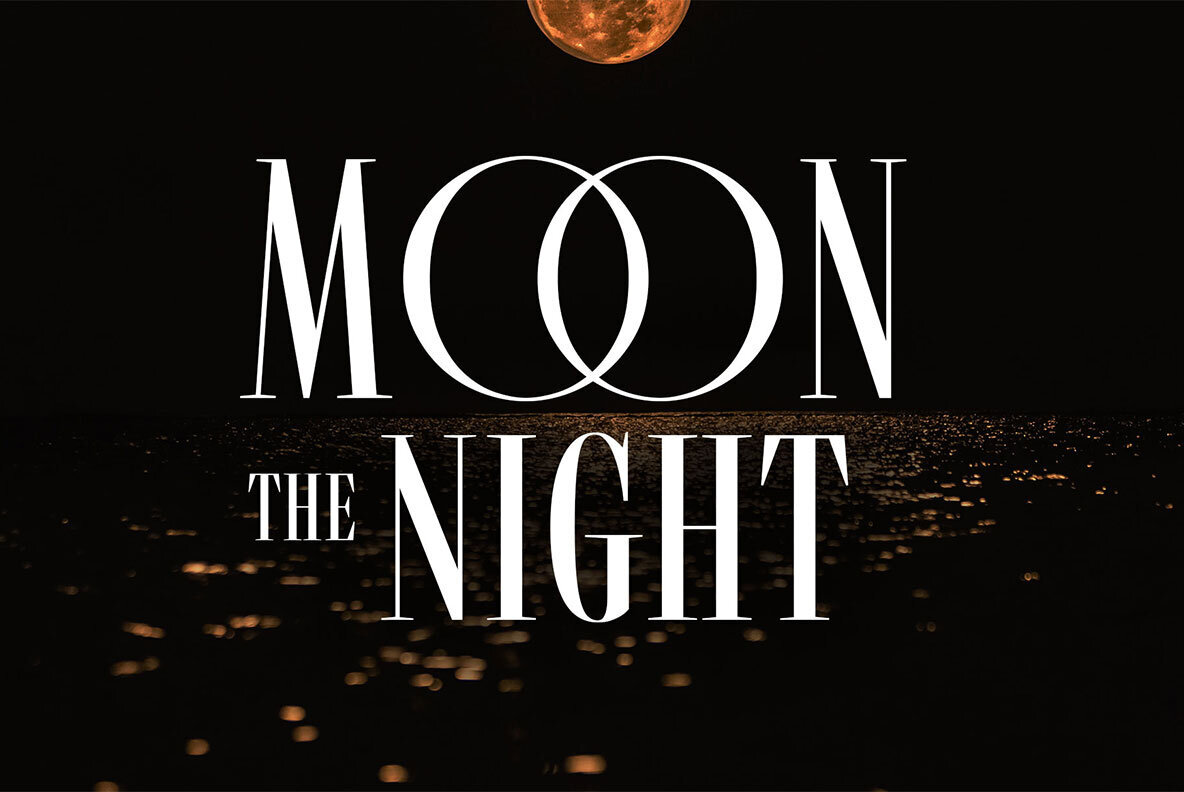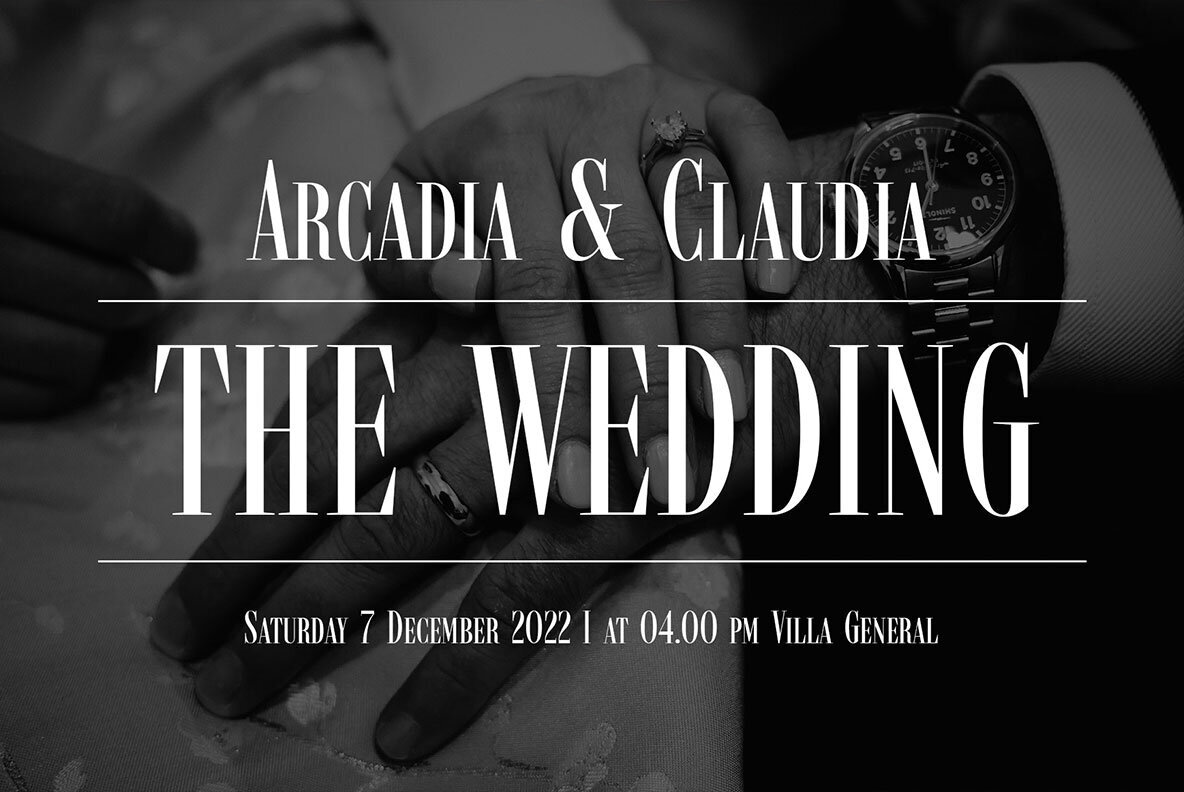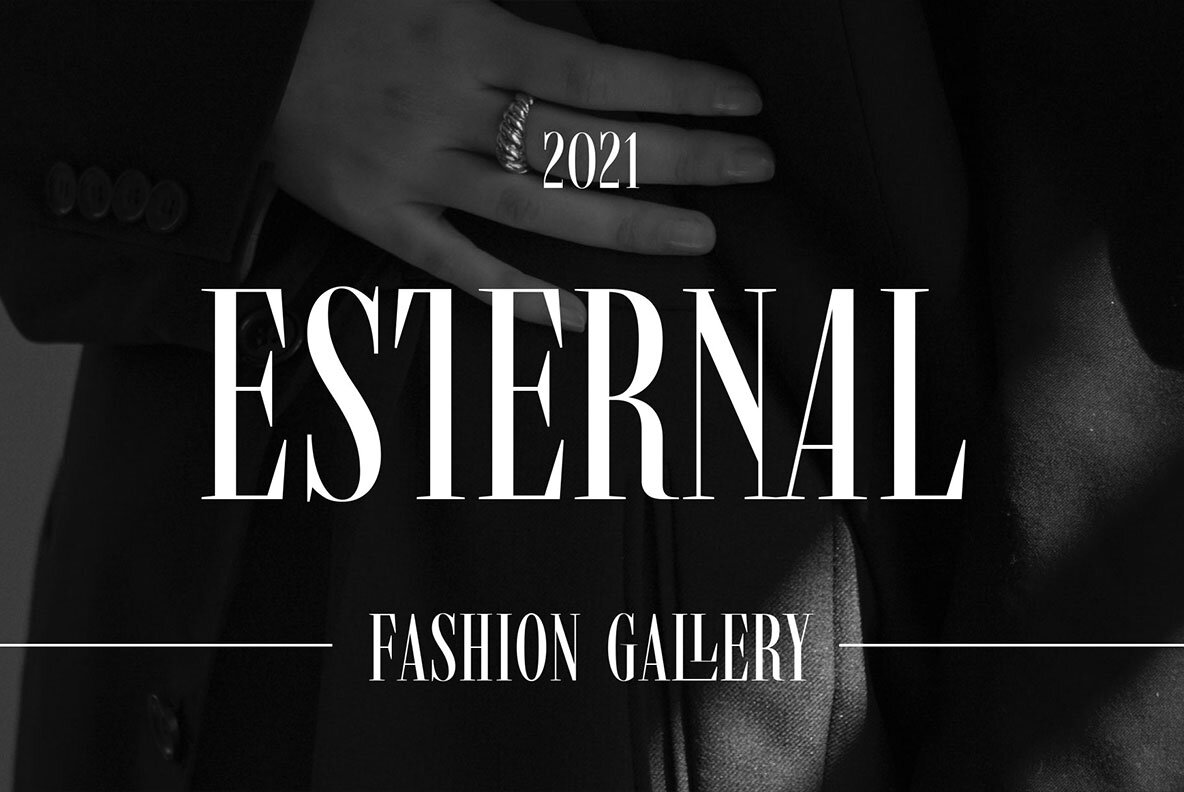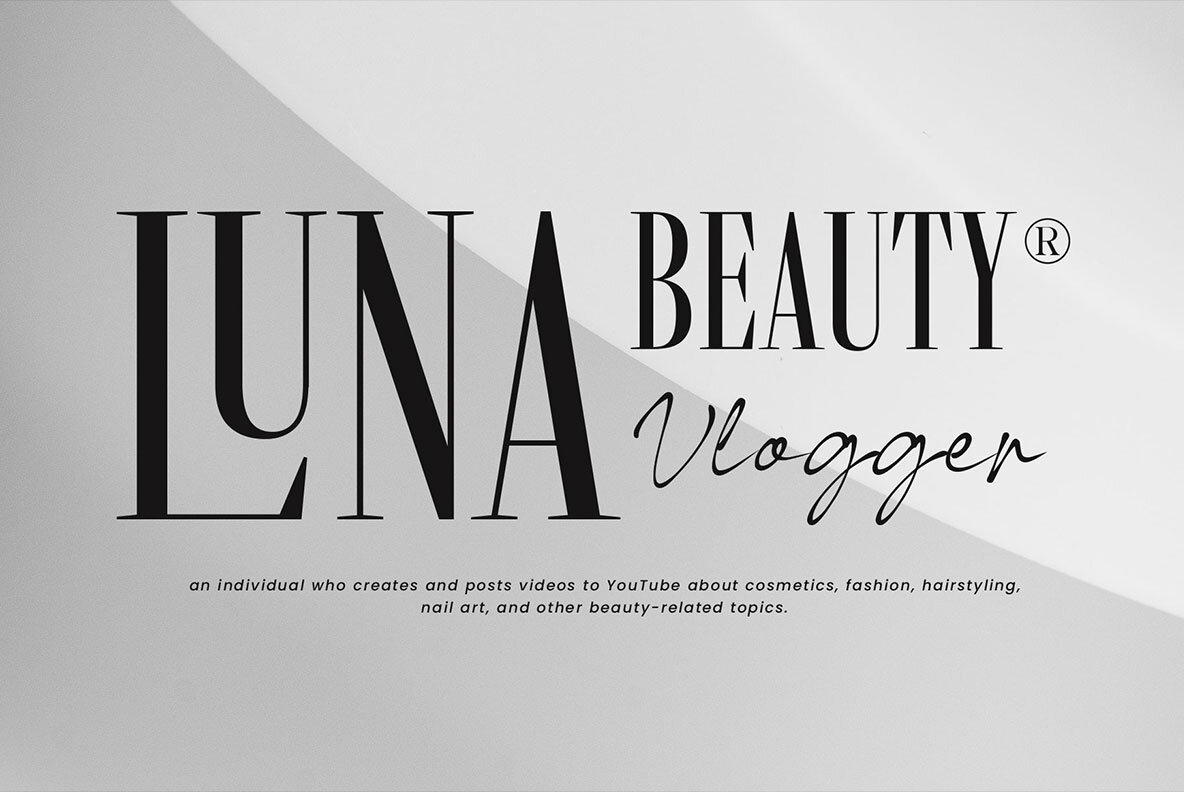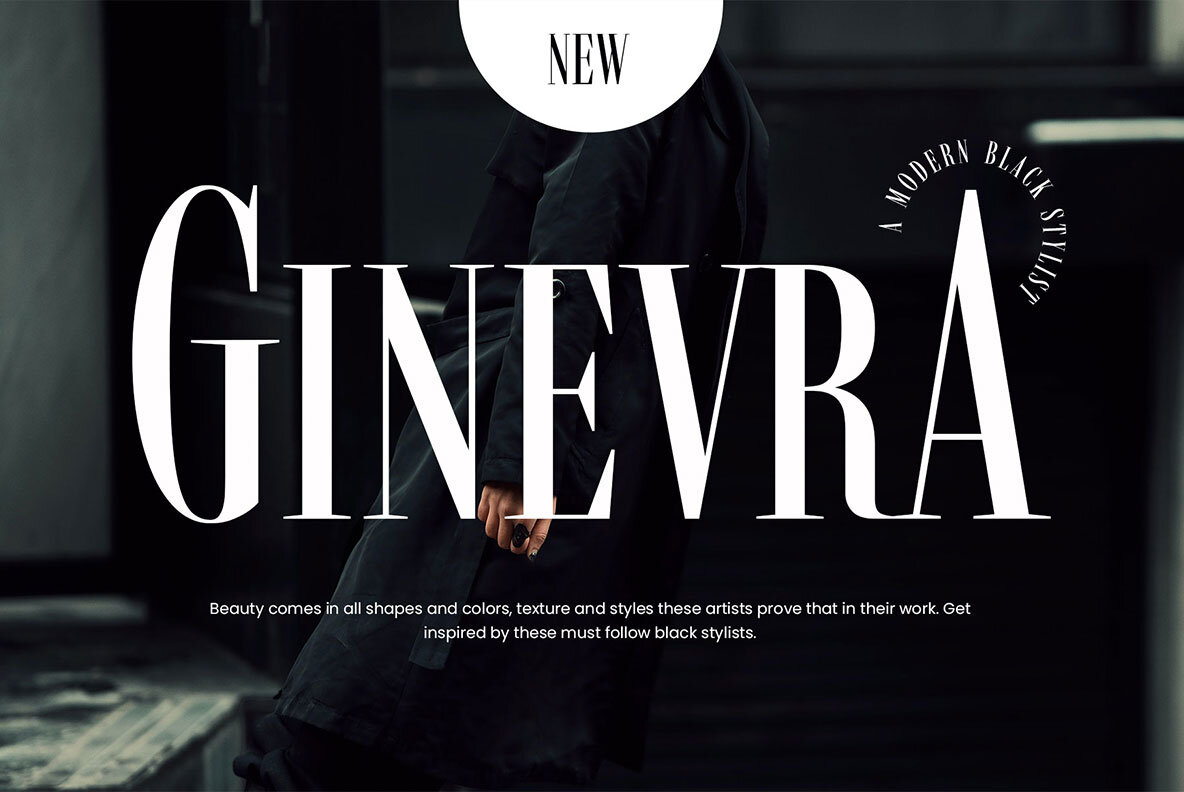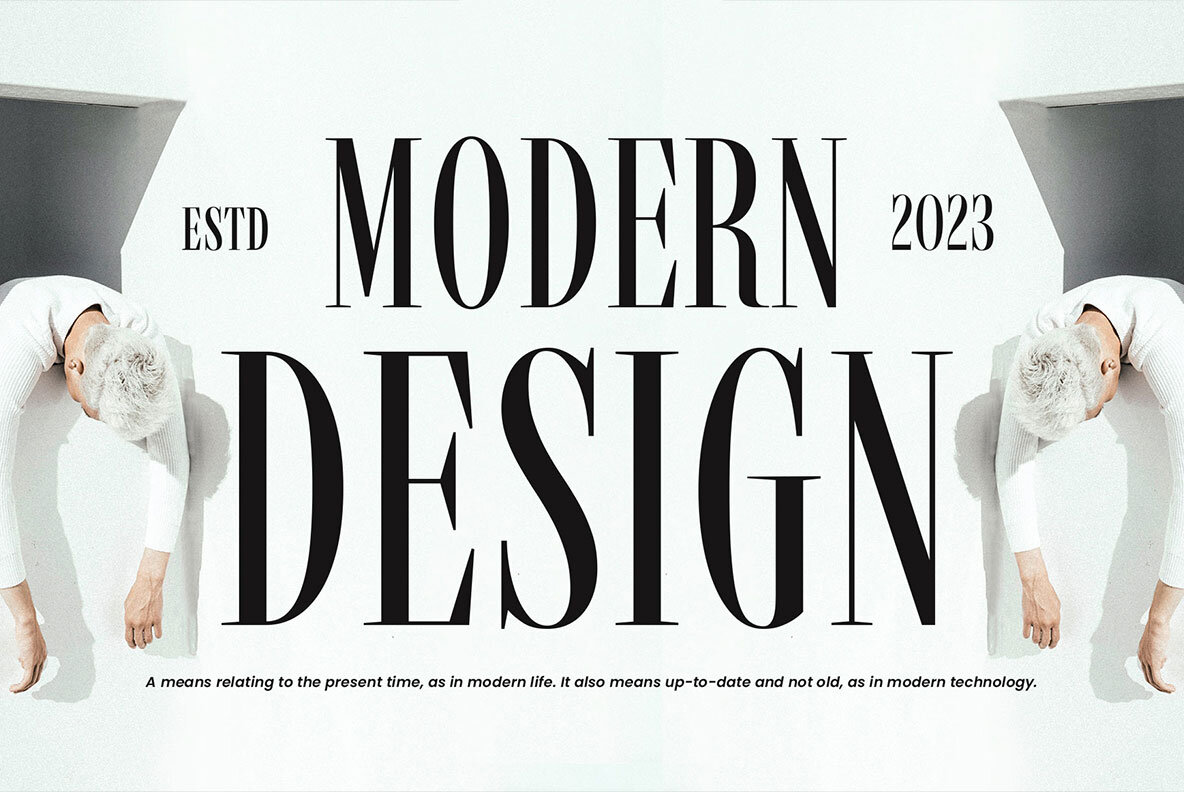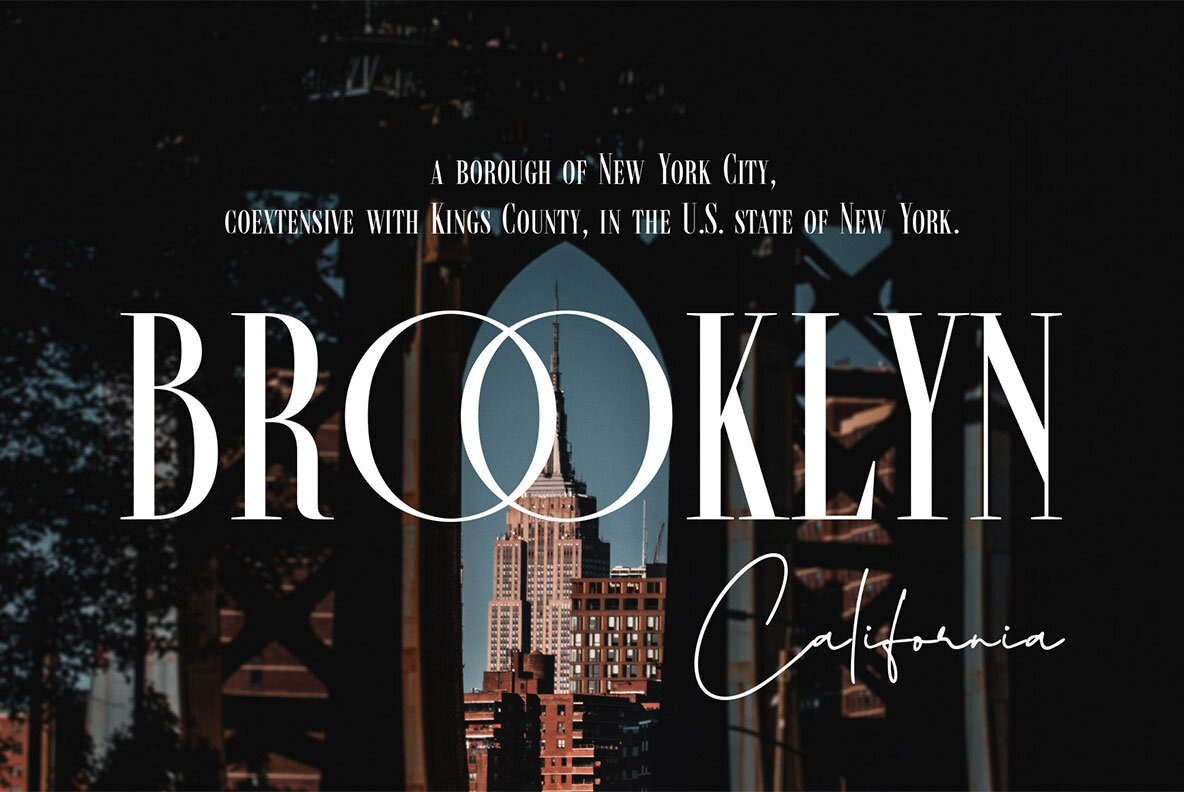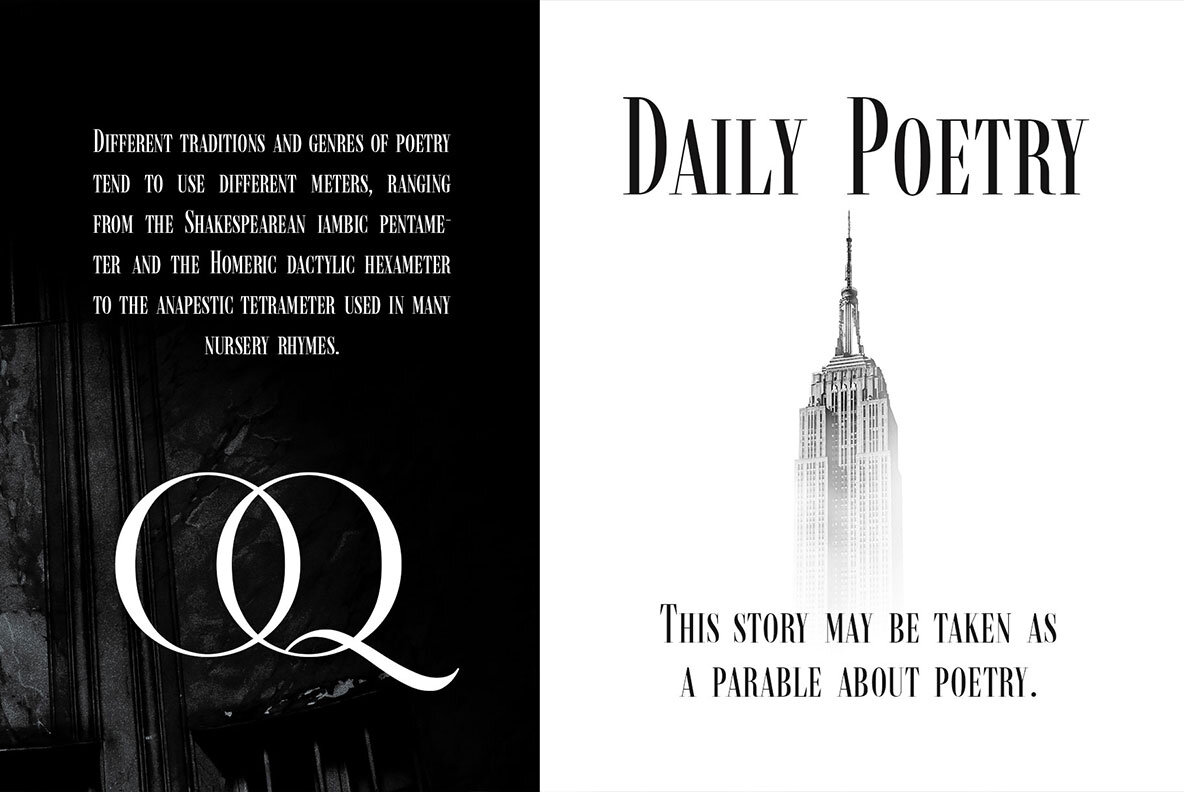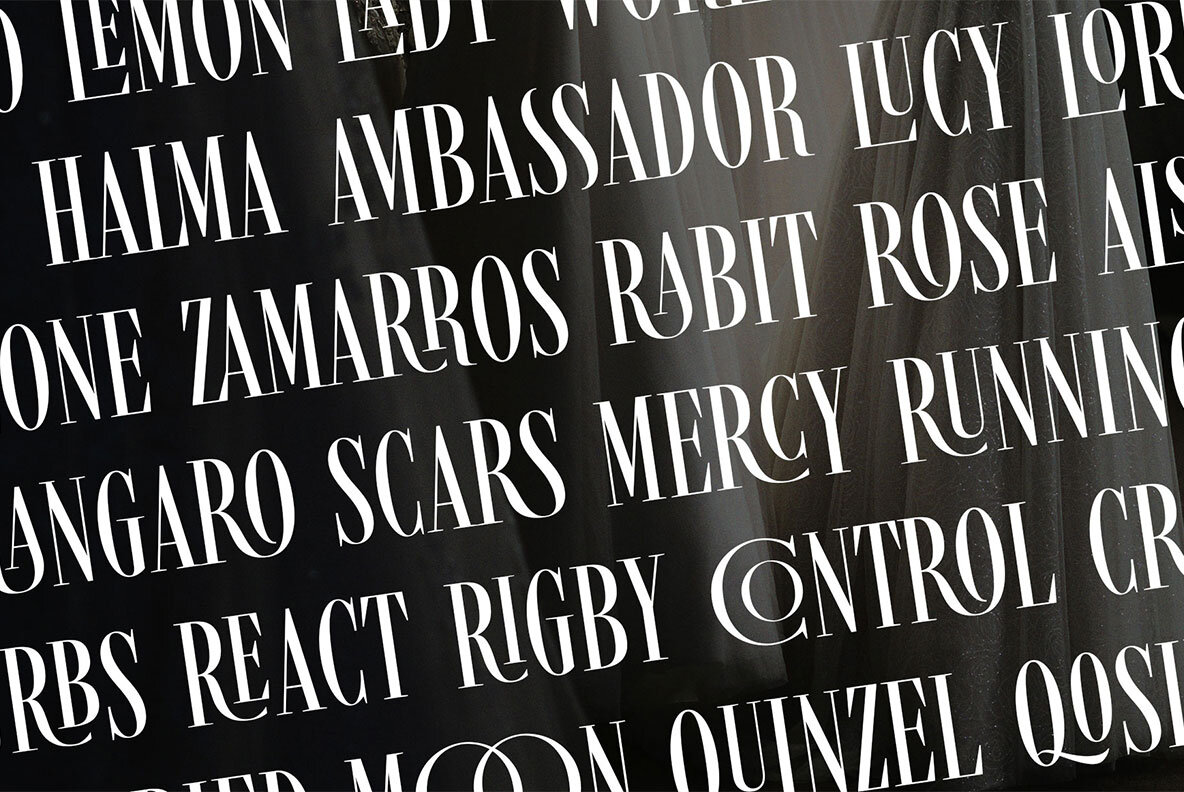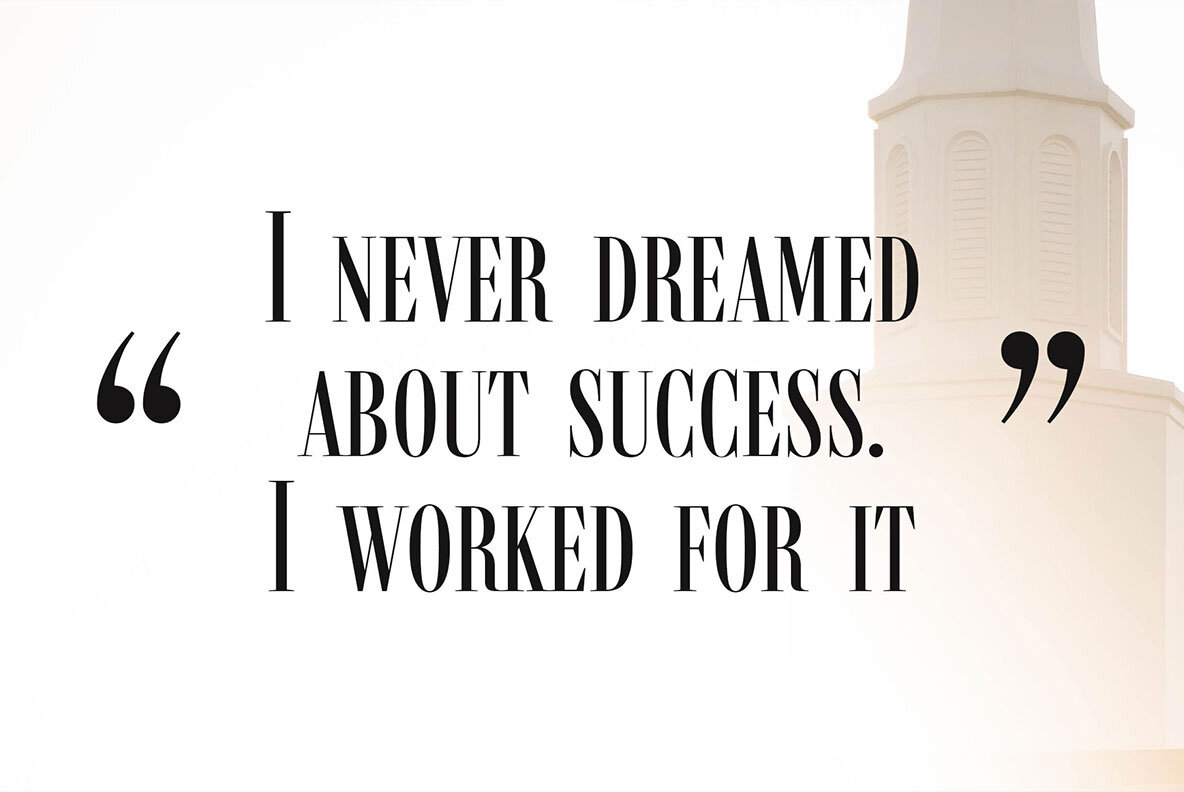
Romavich Font
Romavich Regular
Introducing Romavich, a beautiful condensed serif font, inspired by the modern serif style features with thin lines and bold serifs. This casual and minimalist typeface is versatile and can be used for a wide range of designs, including magazines, editorials, posters, logos, branding, logotypes, wedding, fashion, cards, titles, and more. Romavich is an all-caps font with small caps, allowing you to create an elegant short texts and quotes. It comes equipped with numerous alternates and ligatures, adding a gorgeous touch to your designs. What you’ll get: